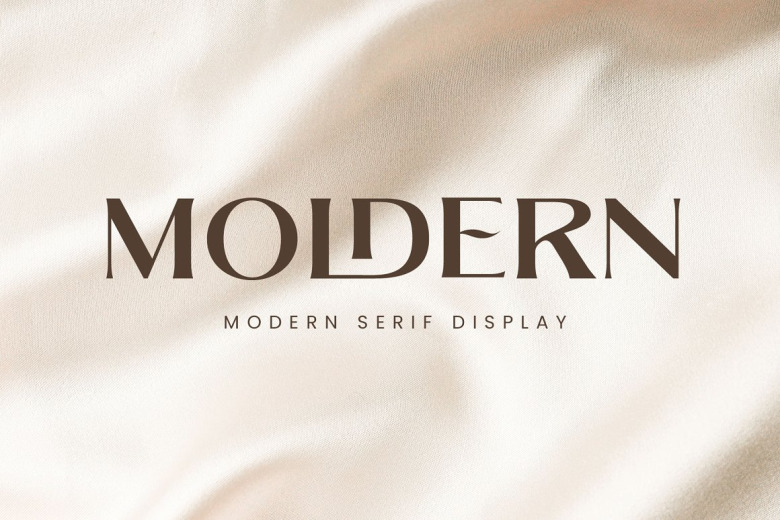
Moldern Font
Moldern is a modern-style display serif font along with some stylish ligature explorations. Moldern combines decoratives, vintages and minimalists style in one package but still has a high standar of weigh for display. This font is elegant, feminine and luxury looking.
Moldern Serif Font